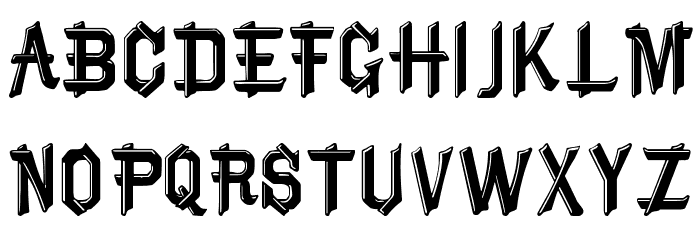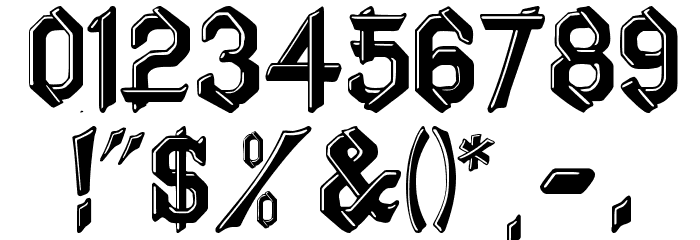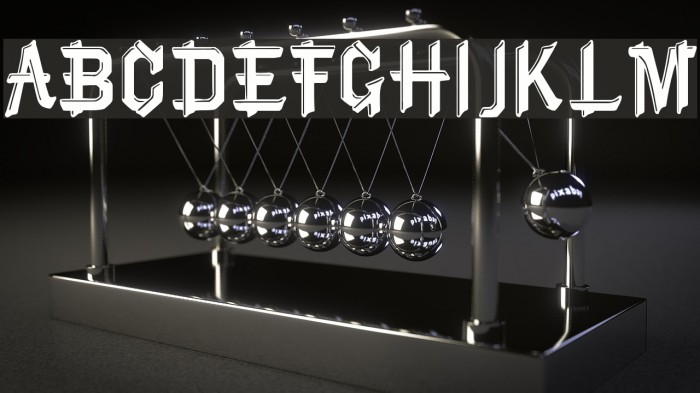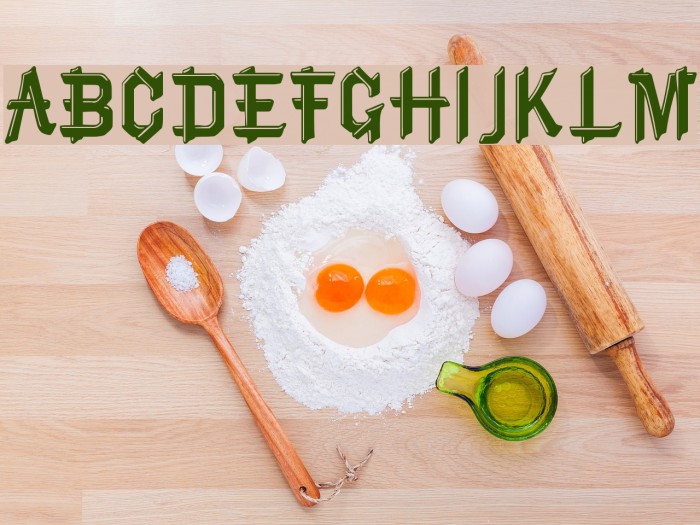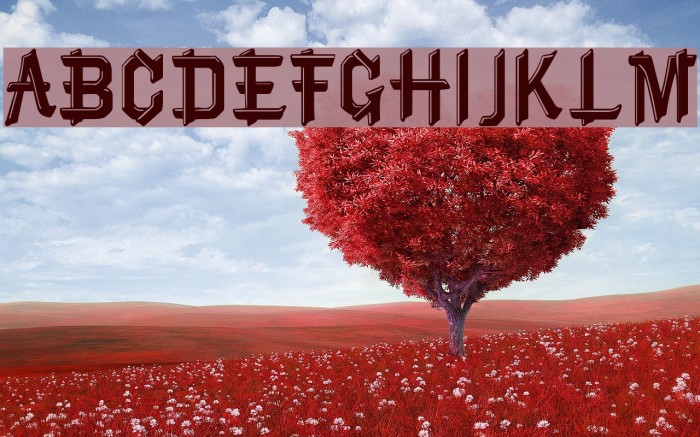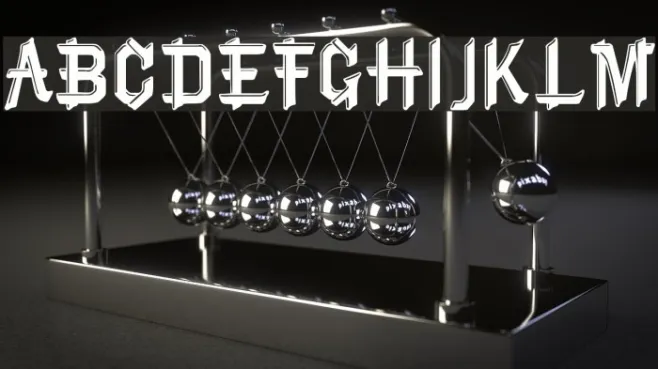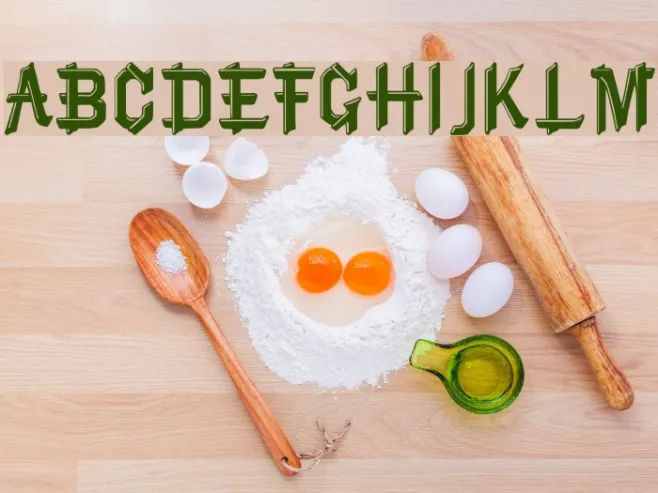
Force Font
This font features a bold and striking design with a three-dimensional effect, created by the use of thick, shadowed strokes. The characters are angular and geometric, giving them a modern and edgy appearance. The uppercase letters are particularly prominent, with sharp serifs and a strong presence. The numbers and special characters maintain the same bold style, ensuring consistency across all elements. This font is designed to stand out and make a statement, suitable for attention-grabbing headlines or logos.
Bold, angular font with a 3D effect and strong serifs.
- Proposed Projects: Ideal for use in branding, posters, video game titles, and any project requiring a bold, impactful typeface.